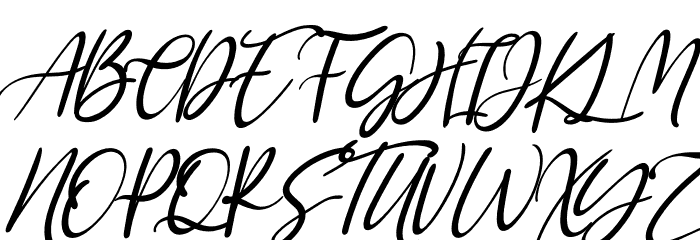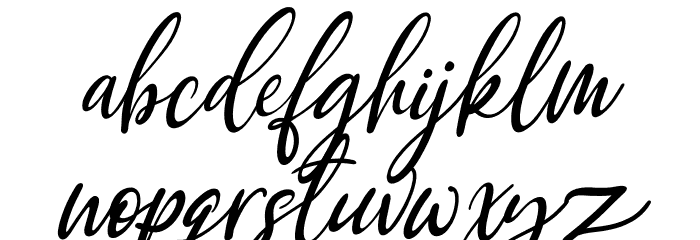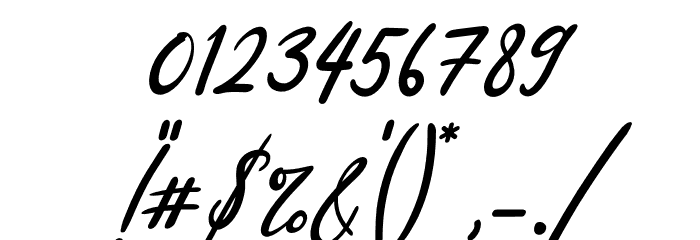
Kayliee Mightness Italic Font
A flowing, cursive script font with elegant, connected strokes and a handwritten appearance.
Elegant cursive script with a handwritten style.
- Font: Kayliee Mightness Italic
- Proposed Projects: Invitations, greeting cards, personal branding.
- Category: Script
- Character Spacing: Tight
- Use Case: Logos, Invitations, Decorative text